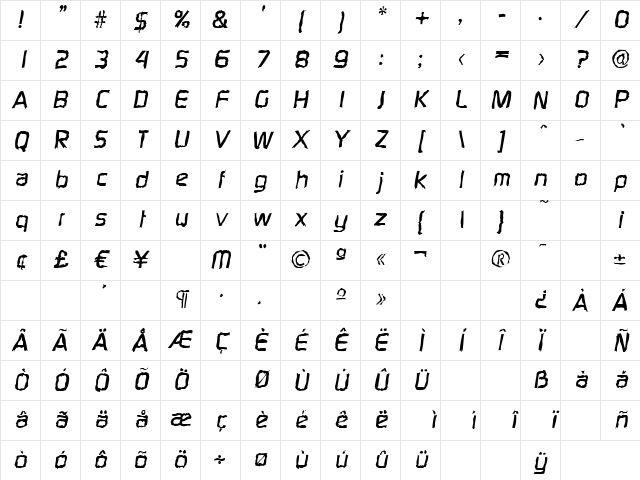
RandyBeckerRandom BoldItalic Free Font
RandyBeckerRandom BoldItalic
Design Context for RandyBeckerRandom
RandyBeckerRandom is a composed and adaptable typeface that performs quietly and consistently across a wide range of design contexts. The slanted form adds forward momentum and visual energy. Its bold stroke weight gives it real presence on the page.
Pro Tip: Use RandyBeckerRandom for emphasis, pull quotes, and subheadings where its slanted energy can add rhythm to the layout.